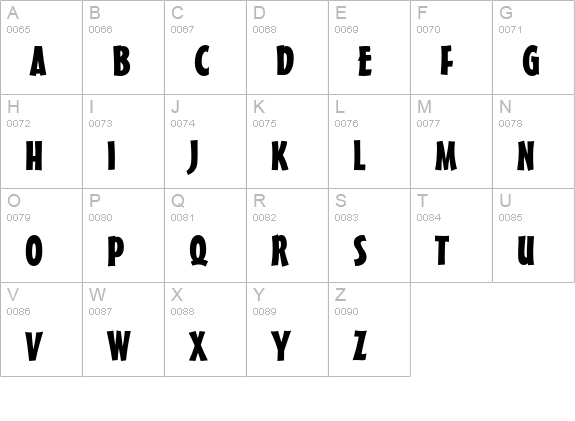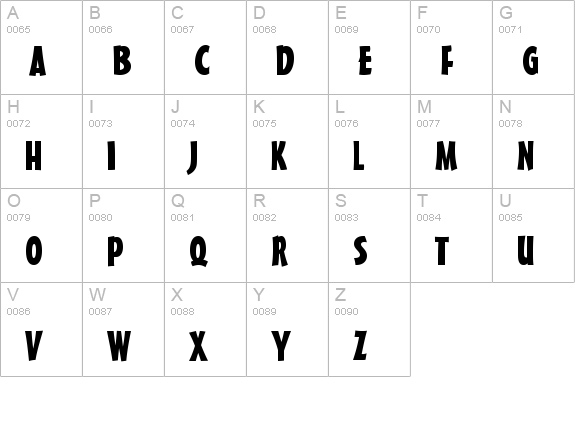
Mister Earl Bold Font Details
Mister Earl Bold is a strong, high-contrast variant in the Mister typeface family \xE2\x80\x94 well suited to headlines, attention-grabbing titles, and strong calls-to-action.
Mister Earl Bold font is a striking and sophisticated typeface that exudes confidence and elegance. Its bold and commanding presence makes it perfect for headlines, logos, and branding projects that demand attention. The strong, clean lines and sharp angles of this font give it a modern and edgy feel, while its classic proportions ensure readability and versatility across various design applications. What's more, Mister Earl Bold font is available for free download at FontsMarket.com, making it accessible to designers and creatives looking to add a touch of bold sophistication to their projects without breaking the bank. Whether you're working on a sleek corporate identity, a high-impact advertising campaign, or a stylish editorial layout, Mister Earl Bold font is sure to make a bold statement and leave a lasting impression. Download it today and elevate your designs with this stunning typeface.